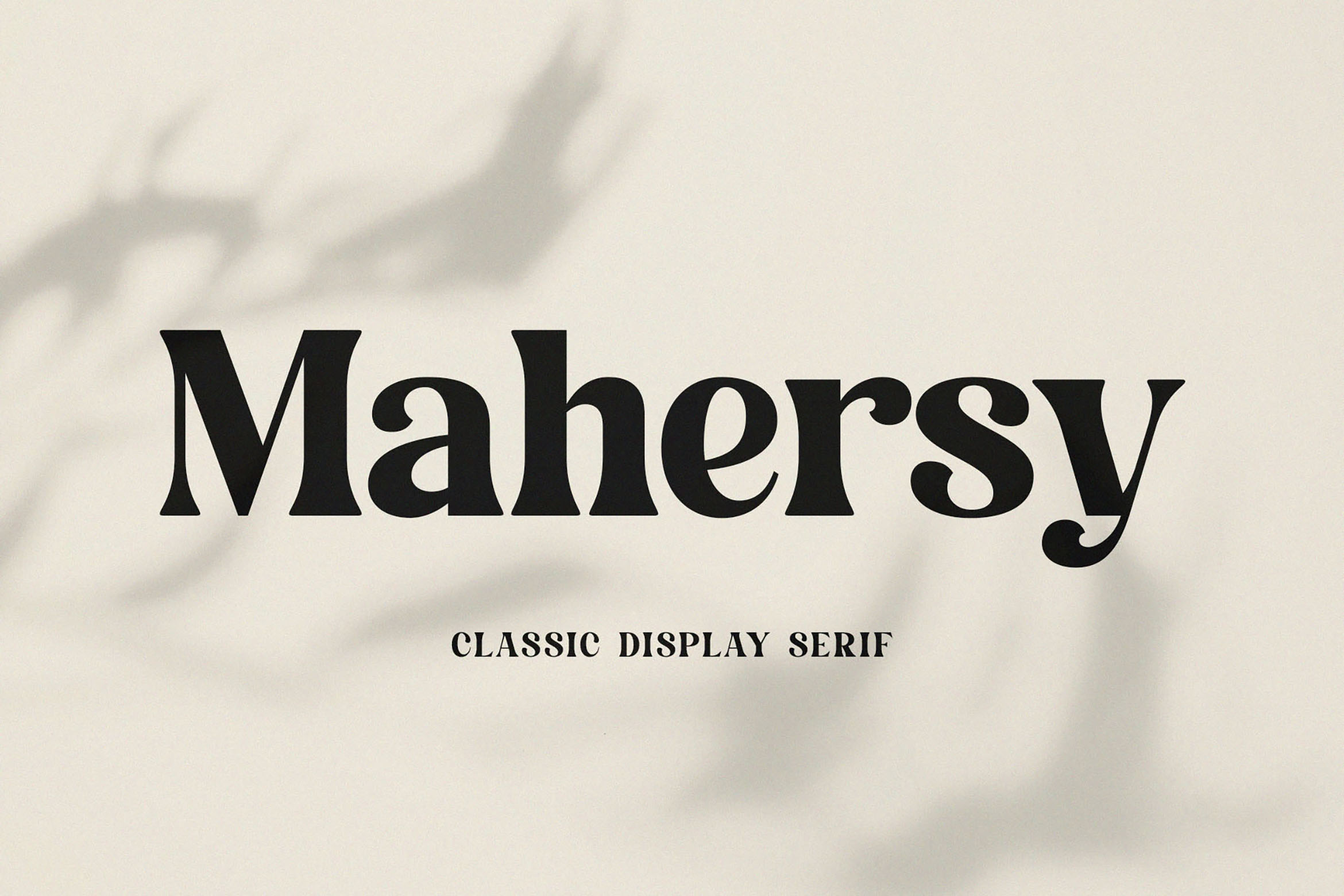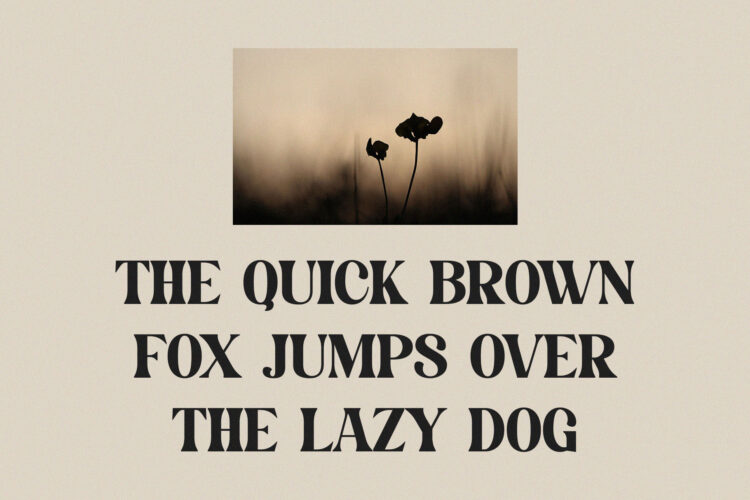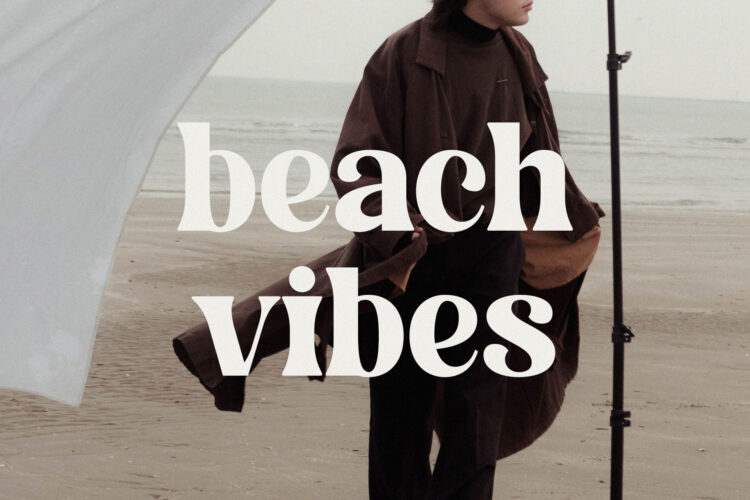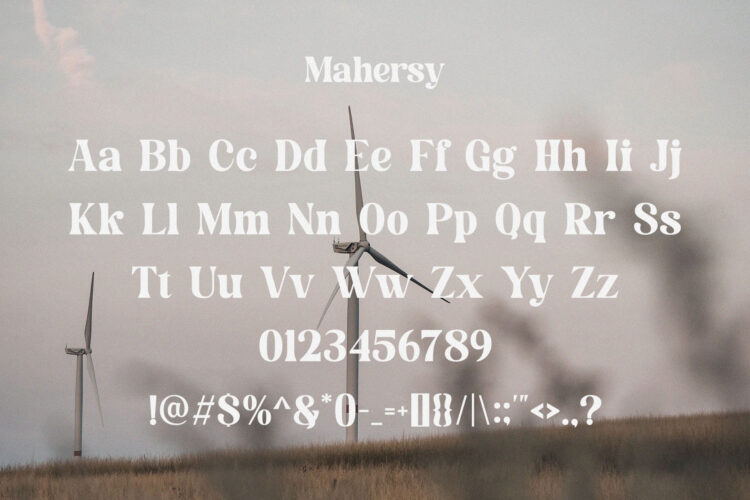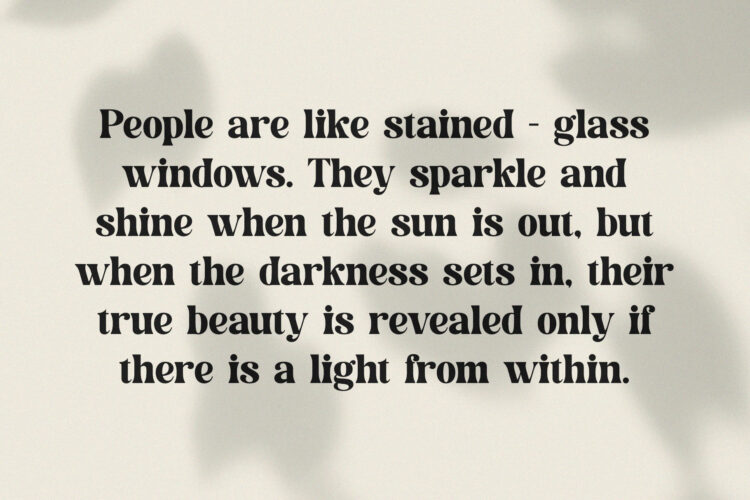
Introducing our new Mahersy, modern serif font with elegant style this is perfect for branding, logos, invitation, magazines, product packaging and more.
Mahersy – Classic Display Serif